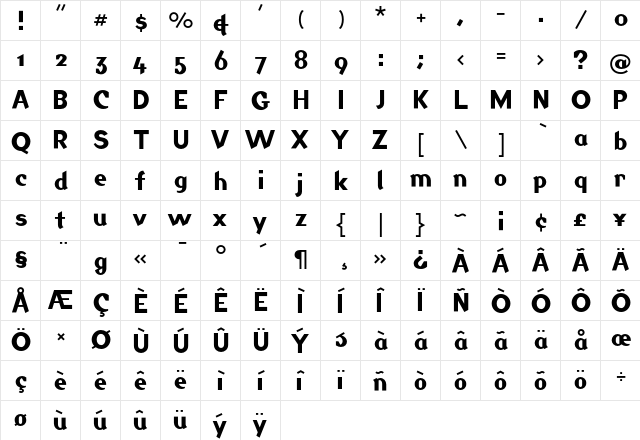
Jackdaw Regular
Design Context for Jackdaw Typeface
Jackdaw offers clean, dependable letterforms without strong stylistic allegiance, making it a practical choice for designers who need flexibility.